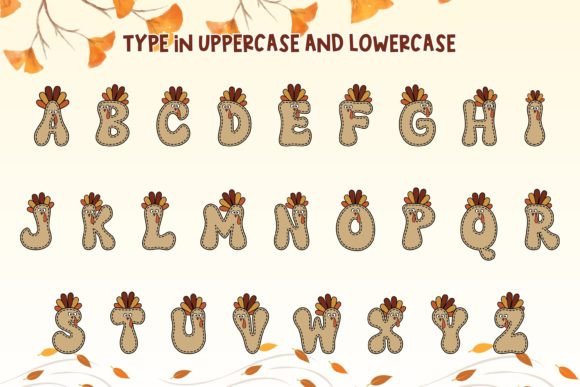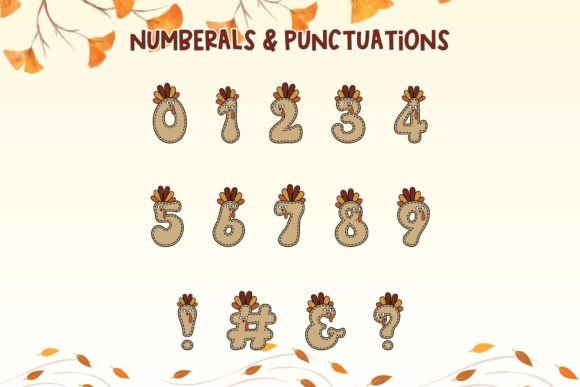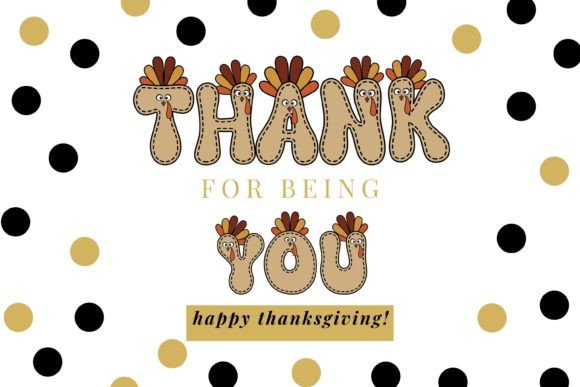
Introduction to Retro Turkey Font
As you’re brainstorming ideas for your next creative project, have you ever wished for a design resource that captures the essence of the holiday season? A font that screams ‘Thanksgiving vibes’ and brings a touch of magic to your digital imprints, t-shirt designs, and craft creations? Look no further! We’re excited to introduce the Retro Turkey Font, a vibrant and playful color font that’s sure to add a dash of enchantment to your designs.
Key Features of Retro Turkey Font
- Unique, hand-drawn design inspired by classic Turkish typography, making it a perfect fit for creative projects.
- Includes a transparent background option, allowing for easy customization and blending with various backgrounds.
- Designed with a high level of detail, ensuring crisp and clear rendering at resolutions up to 300 DPI.
- Comes in 3 different font weights, providing versatility for various design applications.
- Perfect for use in logos, branding materials, and other design elements where a touch of retro charm is desired.
Honest Review: Retro Turkey Font
I recently stumbled upon the Retro Turkey Font, a unique design resource that caught my attention. This font is perfect for those looking to add a touch of nostalgia to their creative project.
One of the standout features of the Retro Turkey Font is its transparent background, which makes it incredibly versatile. You can use it for a variety of design projects, from digital art to print materials.
Here are some things that work well with the Retro Turkey Font:
- ✨ High-quality design: The font is well-designed and looks great on any platform.
- ✨ Versatile: The font can be used for a variety of creative projects, from digital art to print materials.
- ⚠️ Limited character set: The font only includes a limited number of characters, which may not be suitable for complex design projects.
- ⚠️ Not suitable for all platforms: While the font looks great on most platforms, it may not display correctly on older systems or devices.
Overall, I’m impressed with the Retro Turkey Font. It’s a high-quality design resource that’s perfect for designers looking to add a touch of nostalgia to their creative project. While it has some limitations, it’s definitely worth checking out for free download.
Retro Turkey Font
To use the Retro Turkey Font in PowerPoint or Word, simply upload the font file and select it from the font list. You can then use the font to create presentations, documents, or other materials with a unique and creative touch.
To get the most out of the Retro Turkey Font, experiment with different font sizes, colors, and styles to create a unique look. You can also use the font in combination with other design elements to create a cohesive and visually appealing design.
The Retro Turkey Font is commonly used in creative projects such as graphic design, digital art, and advertising. It can also be used in presentations, documents, and other materials where a unique and creative touch is desired.